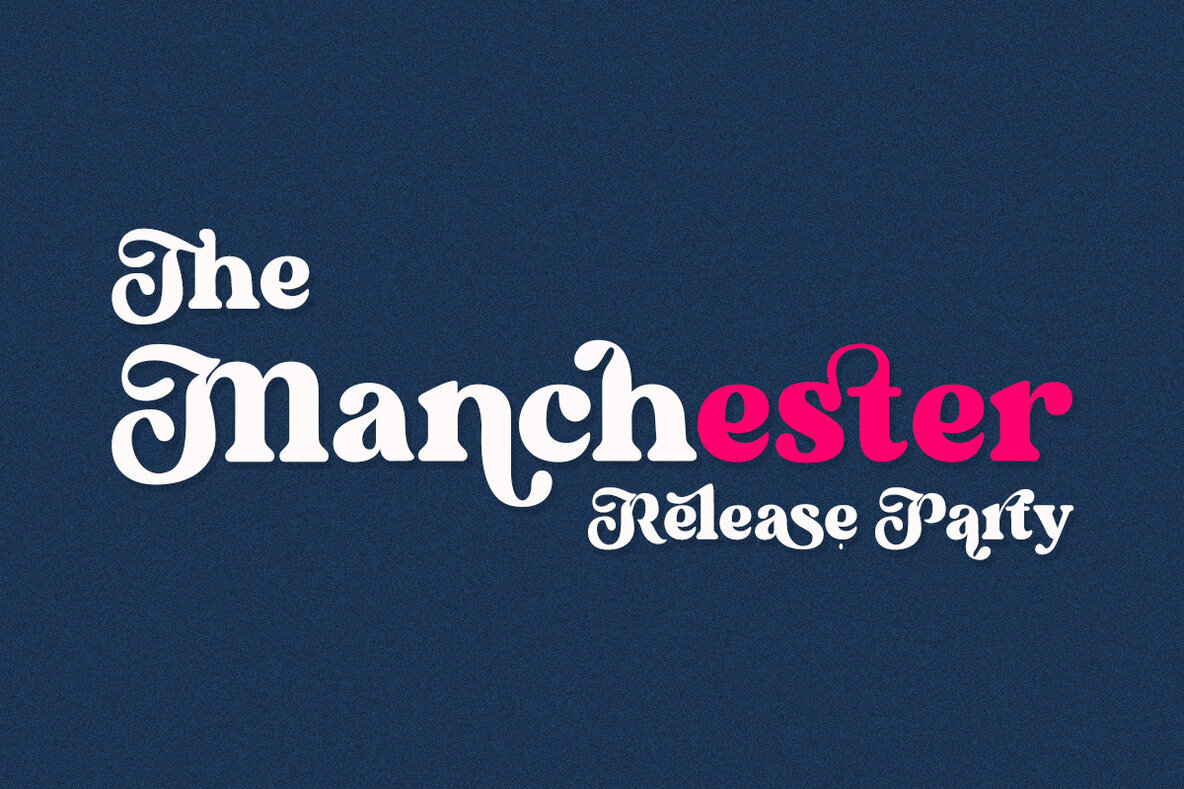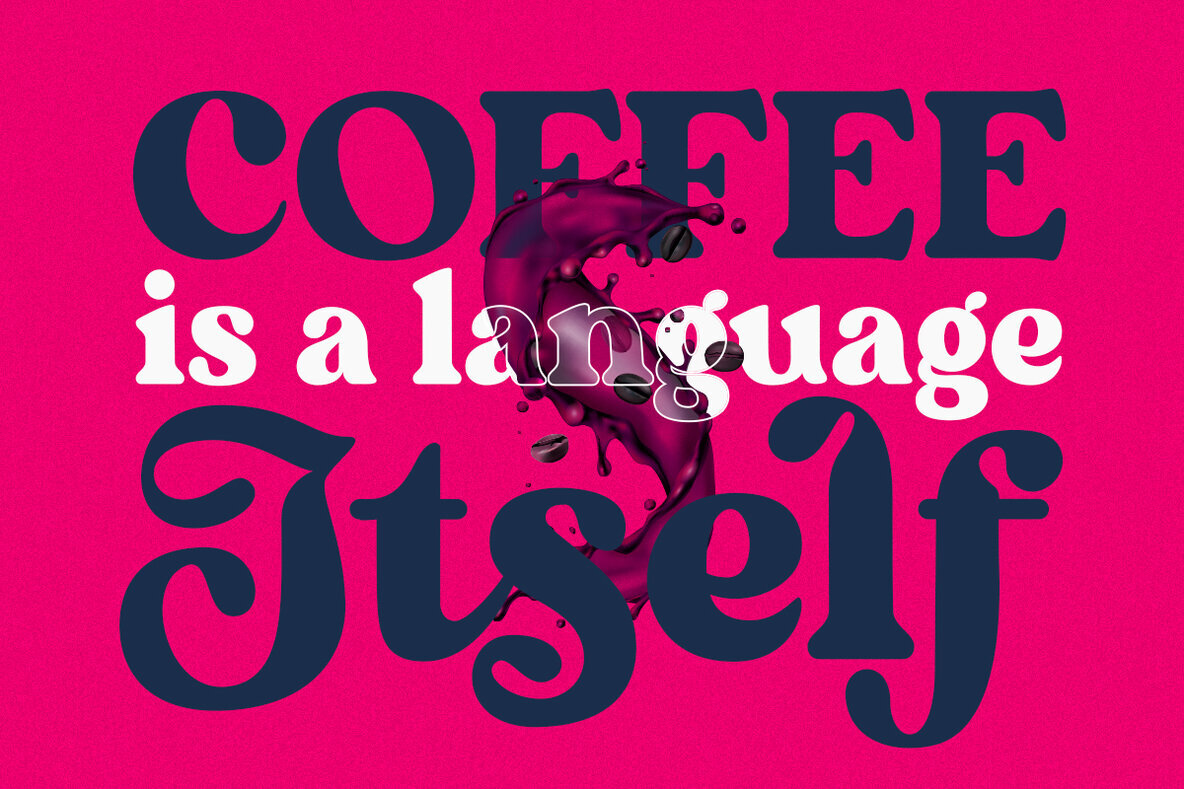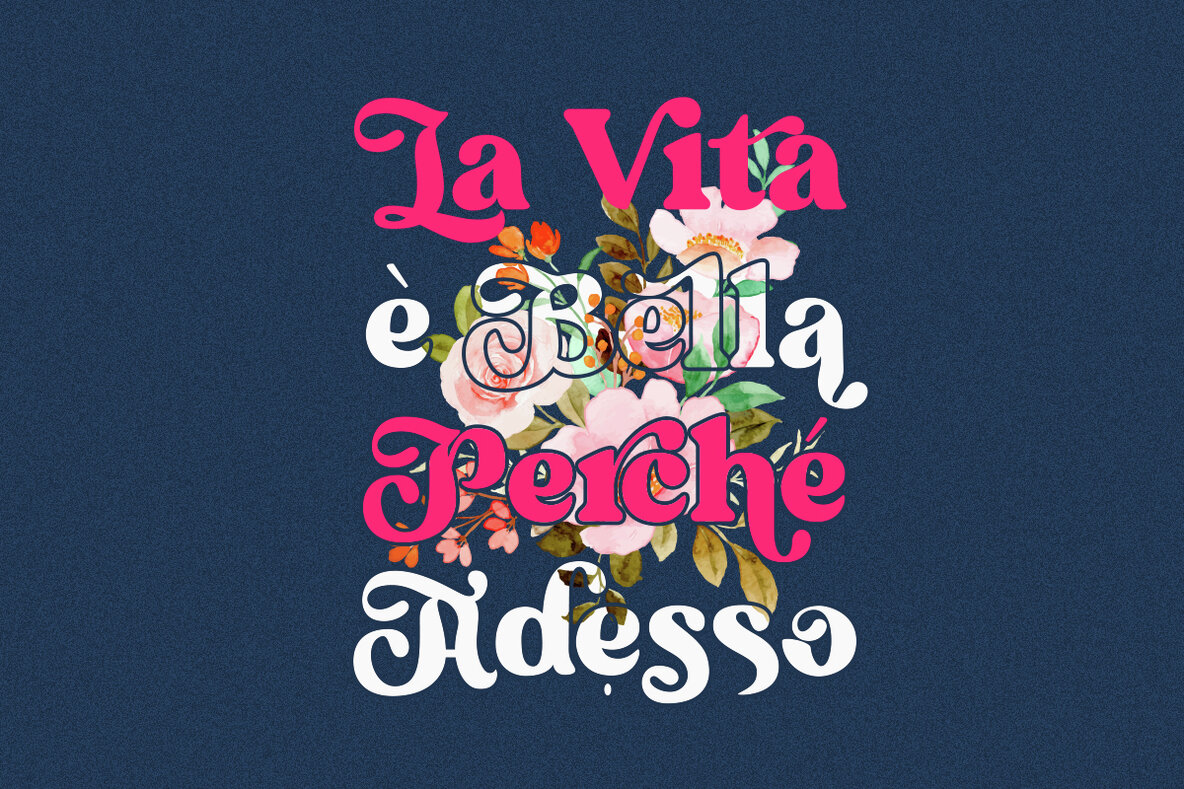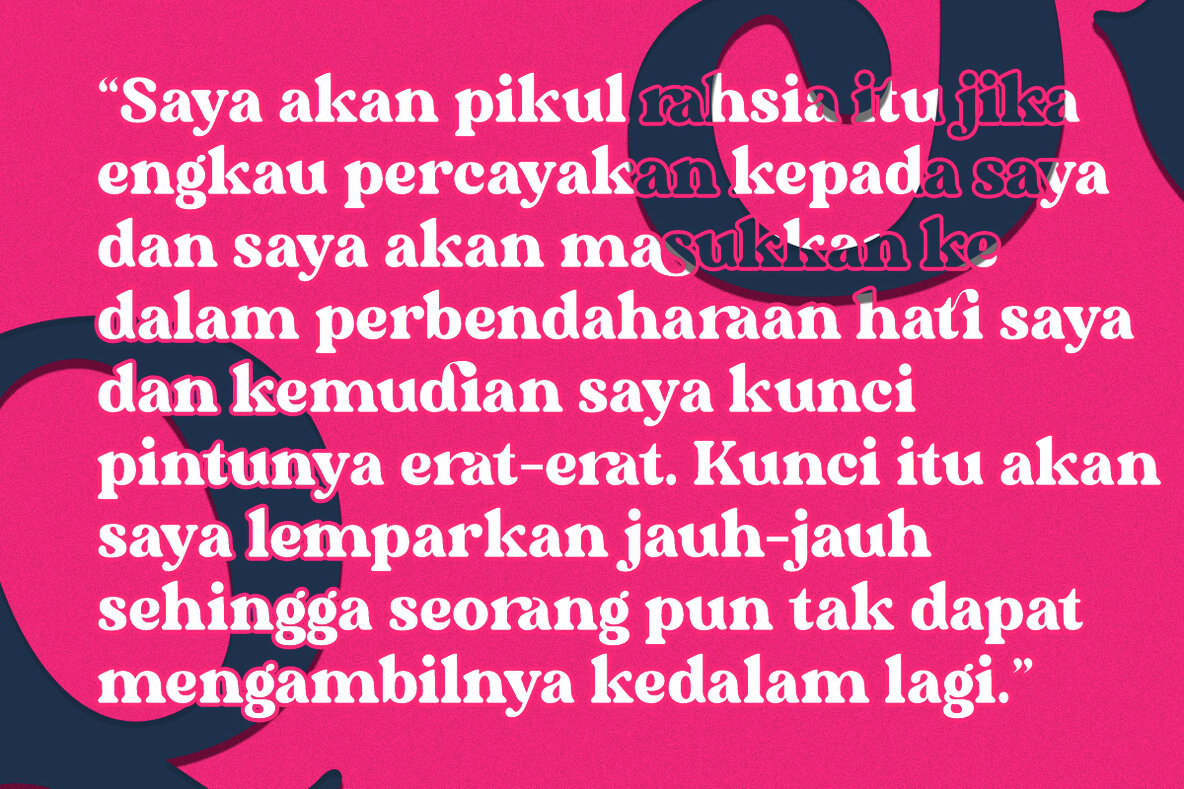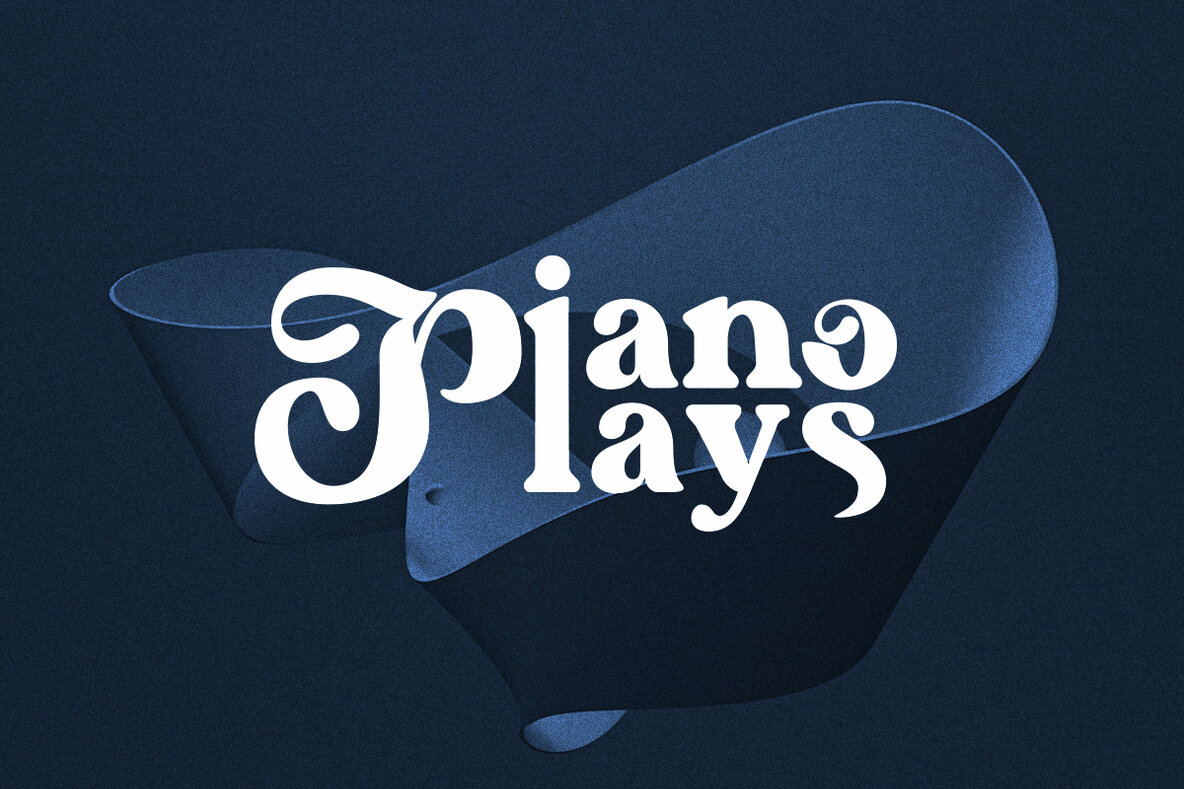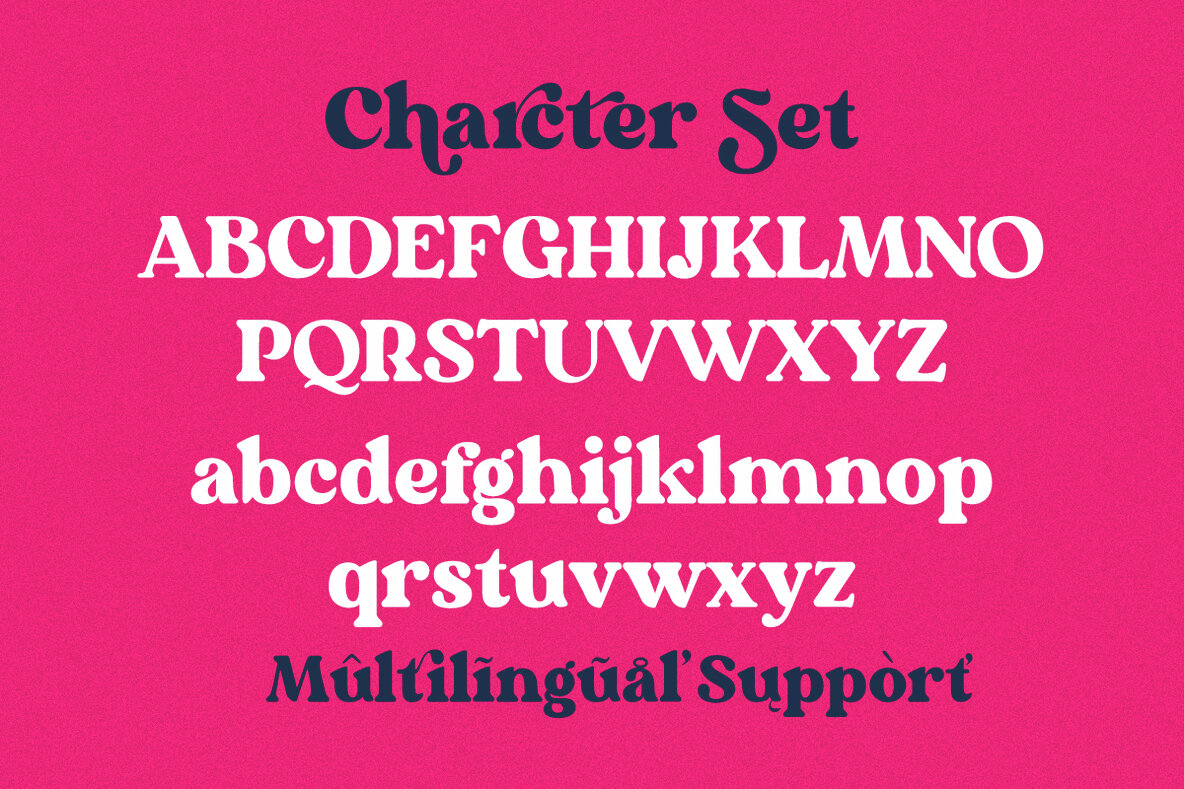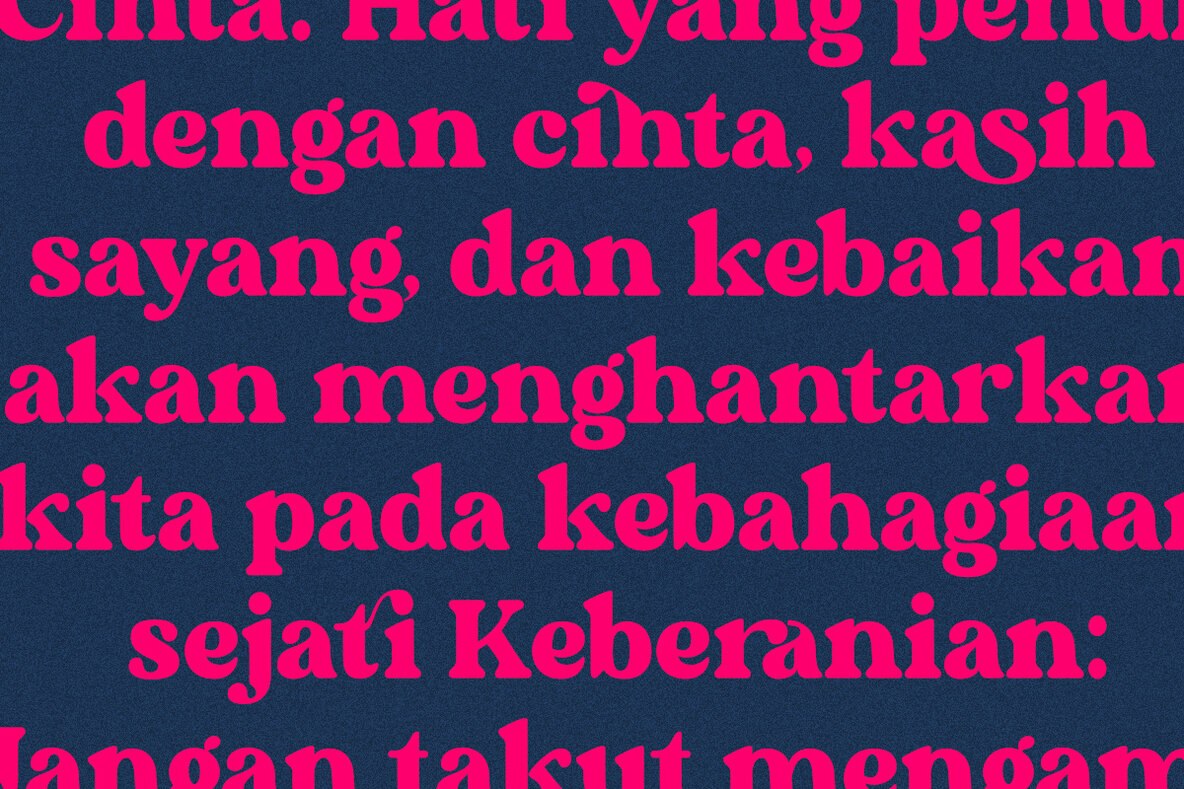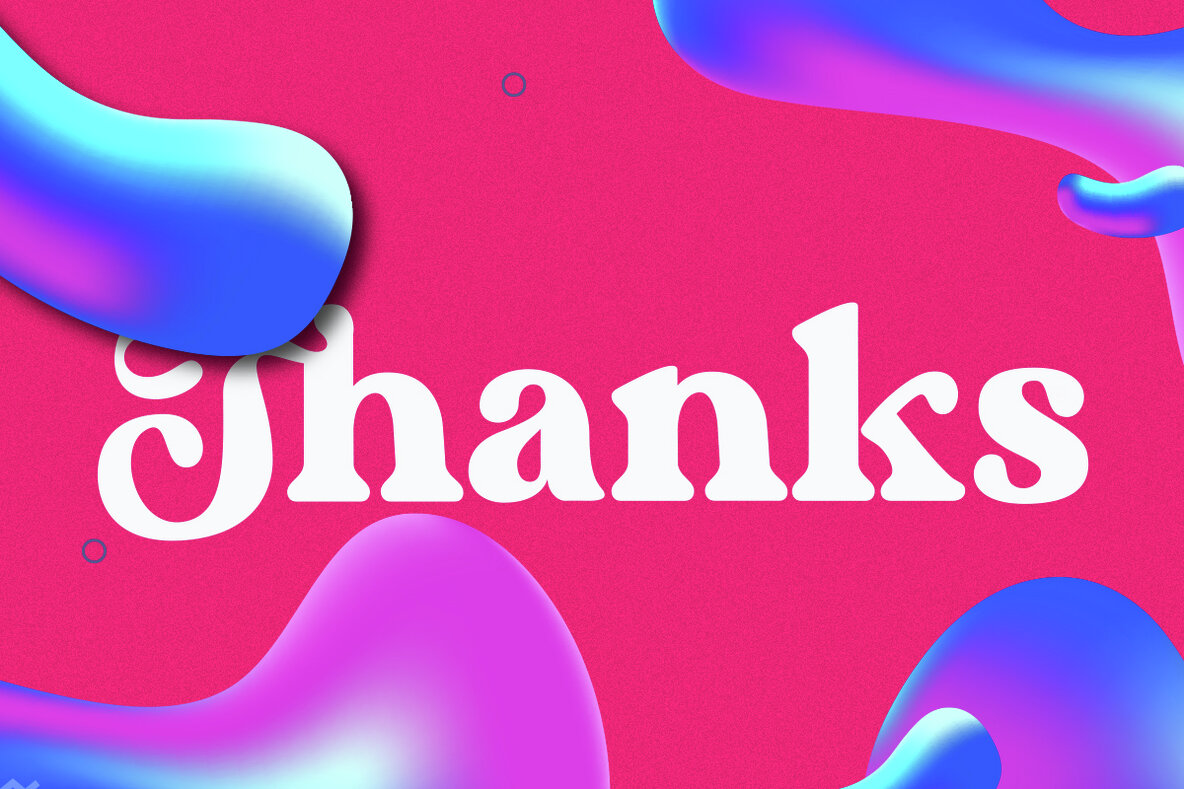
Thelma Font
Thelma
Thelma is a traditional sans serif font that delivers simplicity with its thin, refined lines, creating an elegant and classy impression. This typeface is ideal for designing elegant logos, sophisticated branding, travel promotions, magazine layouts, beauty products, packaging, quotes, or as a stylish text overlay for background images.Thelma: Classic Sans Serif for Elegant Design